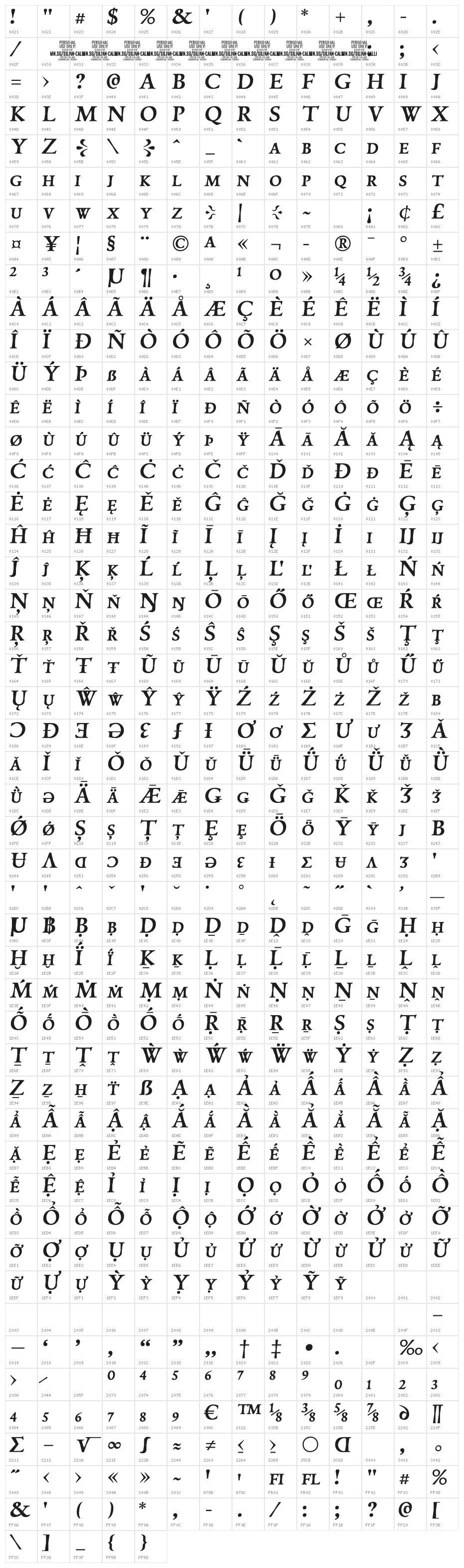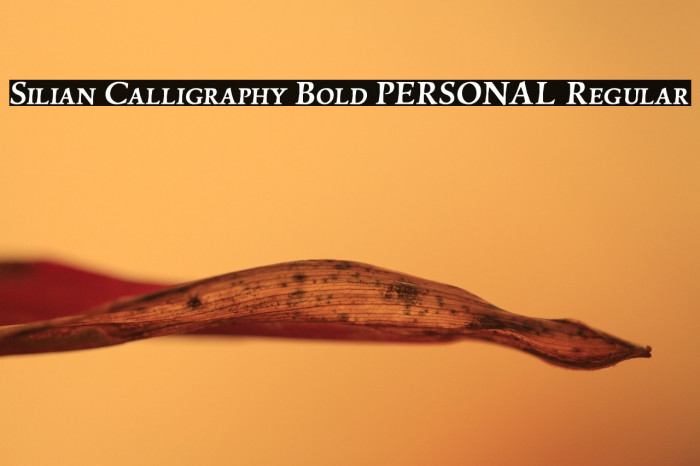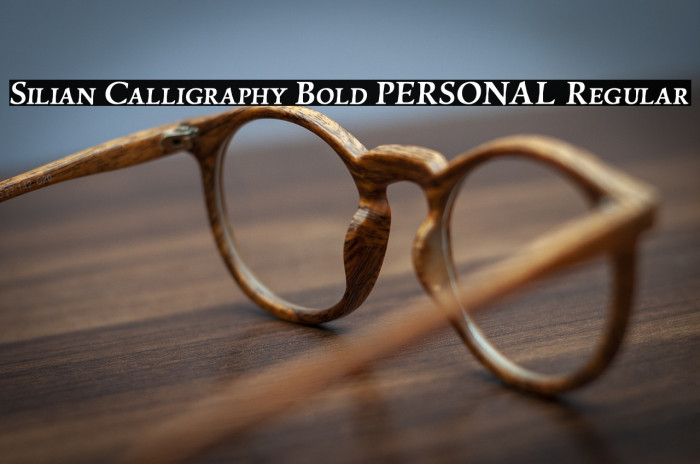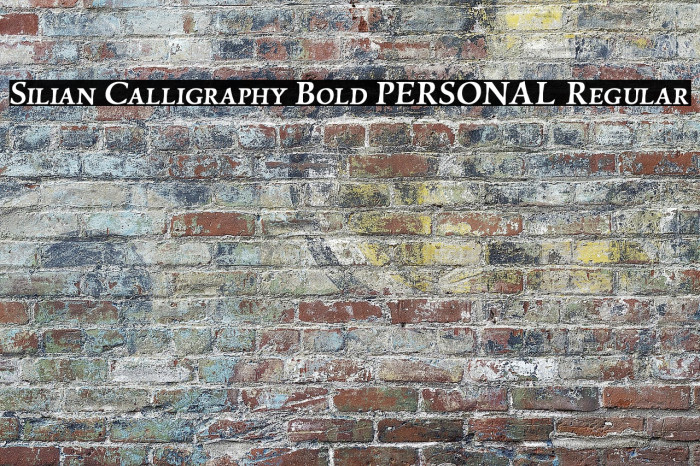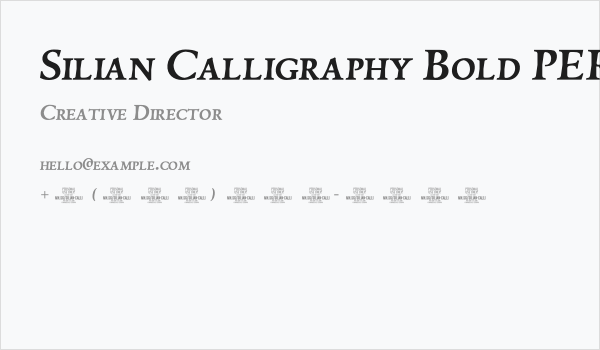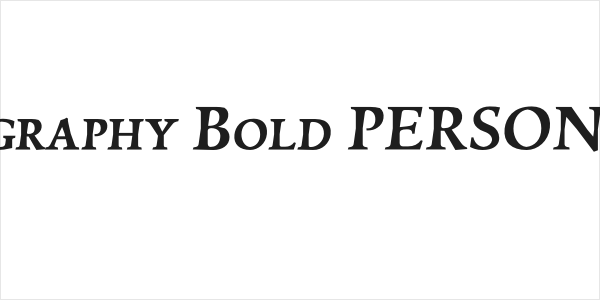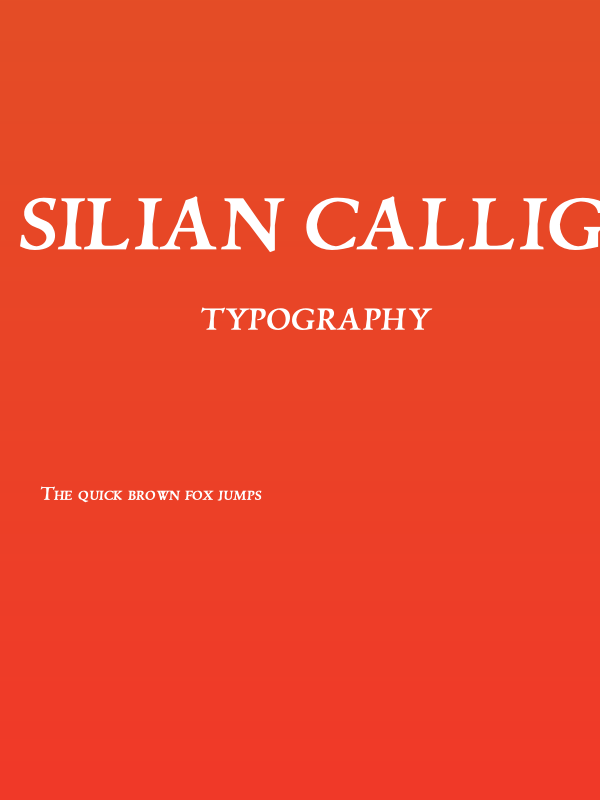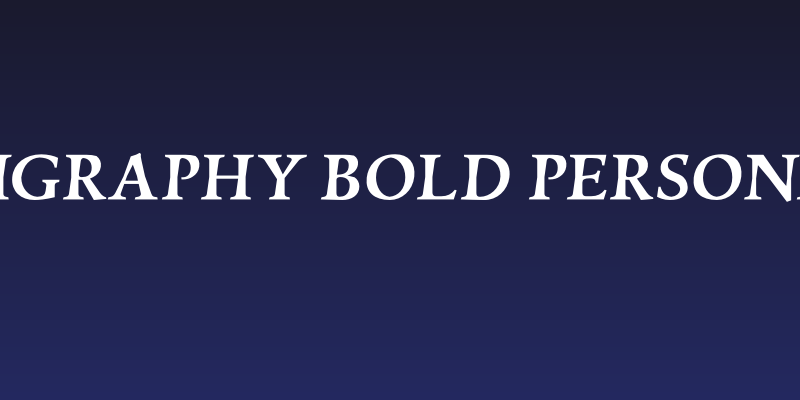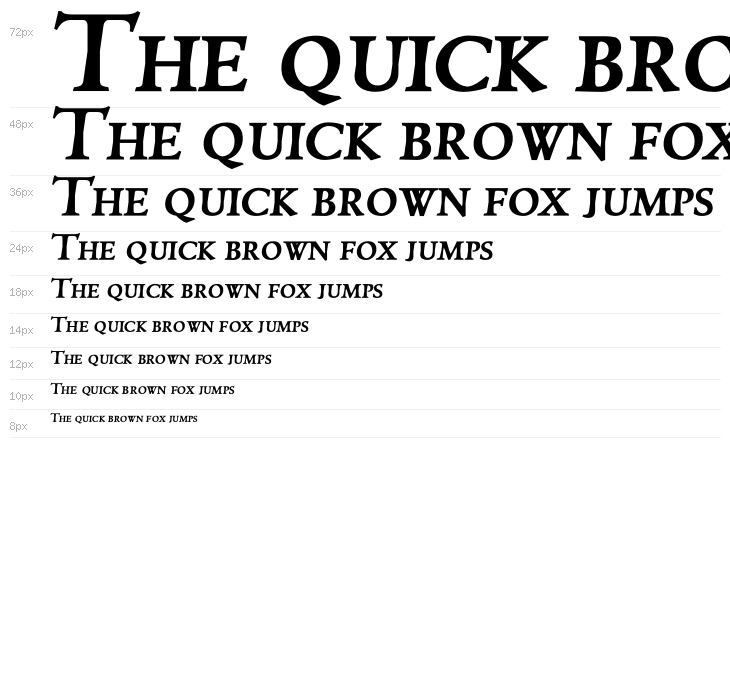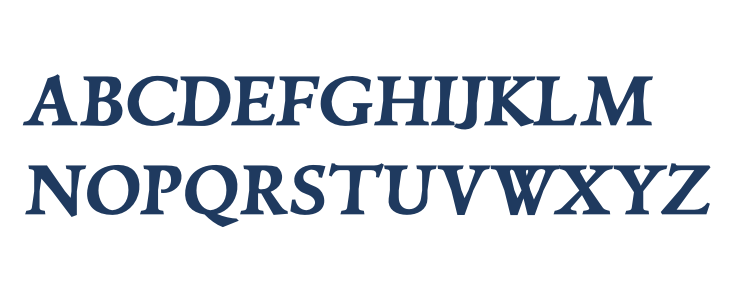
Silian Calligraphy Bold PERSONAL Regular Font
Silian Calligraphy Bold PERSONAL Regular Description
This font features a bold and elegant calligraphic style, characterized by its flowing and dynamic strokes. The uppercase letters are particularly striking, with a sense of movement and flair that suggests a handwritten quality. The lowercase letters maintain this aesthetic, offering a cohesive look across the alphabet. The numerals and special characters are designed with the same attention to detail, ensuring a consistent appearance throughout. The font's overall design is both sophisticated and versatile, making it suitable for a variety of applications.